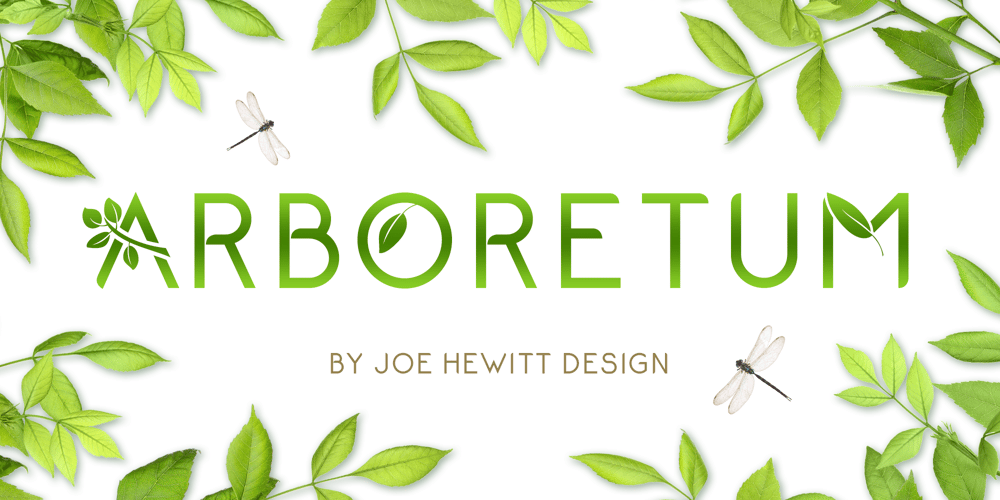
Arboretum Font Family was designed by Joe Hewitt and published by Joe Hewitt Design. Arboretum contains 1 styles and family package options. Inspired by a number of Green and forward thinking ventures, Arboretum is designed to be an Eco-friendly typeface. Perfect for use with recycled products, environmental advertising and anything nature themed. However, its clean and modern appearance works beautifully for a large range of projects.The typeface contains lower and uppercases, the latter having two complete sets of alternatives, each with differing levels of flourish! You will also find a selection of leafy glyphs to help personalise and decorate your Arboretum lettering.The glyph set includes all languages covered in Basic Latin, Latin-1 Supplement and Latin Extended-A scripts.